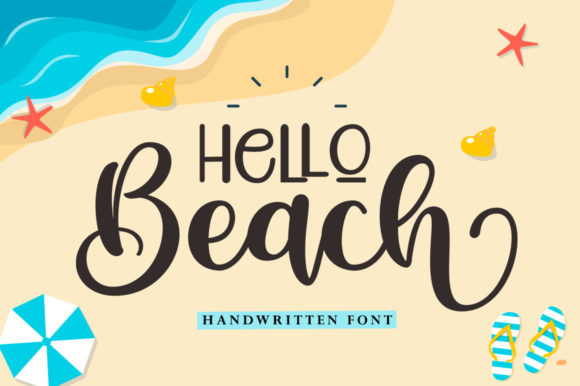
Looking for the best font for branding that can add a playful touch to your designs? Look no further than Hello Beach Font, created by studiorhd. This script font is the perfect choice for anyone seeking a fun and friendly handwriting style.
With Hello Beach Font, you can easily turn any design idea into a true standout. Whether you're creating a logo, branding materials, or social media graphics, this font is sure to capture your audience's attention. Its unique charm and playful style will help your designs stand out from the competition.
Use Hello Beach Font to bring a touch of whimsy to your designs. Its handwritten style adds a personal touch that's perfect for creating a warm and inviting brand image. Plus, with its keyword Best Font For Branding, you can be confident that you're making the right choice for your brand.
With Hello Beach Font, the possibilities are endless. Its versatile style makes it suitable for a wide range of design projects, from greeting cards to product packaging. So why not add a touch of fun to your next project with Hello Beach Font?